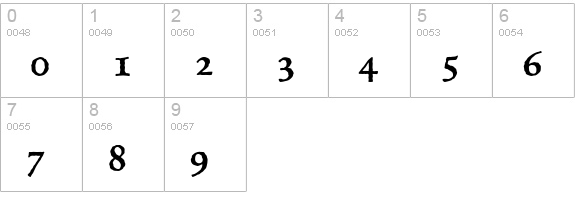
Celestia Antiqua Std Semibold is a sub-bold, structured variant in the Celestia typeface family \xE2\x80\x94 well suited to sub-headlines and emphasised passages.
Celestia Antiqua Std Semibold is a versatile and elegant typeface that exudes sophistication and style. Its bold and commanding presence makes it perfect for headlines, titles, and branding projects that require a touch of classic beauty. With its timeless appeal and strong personality, this font is sure to make a lasting impression on any design project. Best of all, Celestia Antiqua Std Semibold is available for free download at FontsMarket.com. Whether you're a professional designer looking to enhance your portfolio or a hobbyist seeking to elevate your creative projects, this font is a valuable addition to your collection. Don't miss out on the opportunity to add this stunning typeface to your toolkit today.